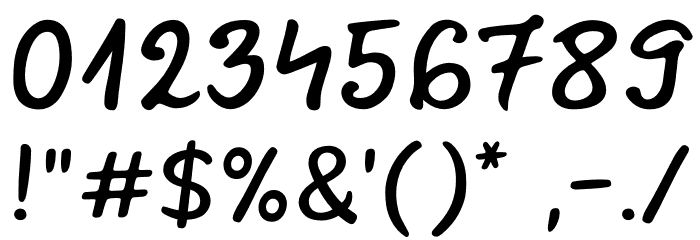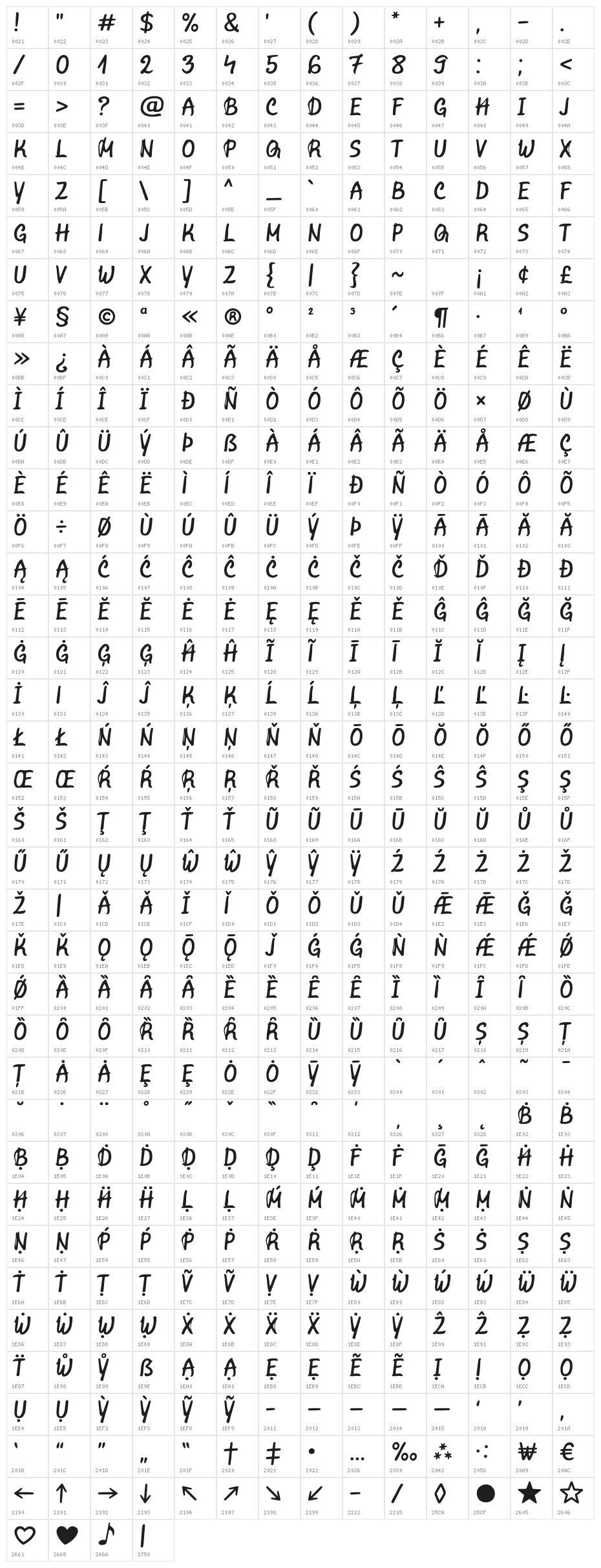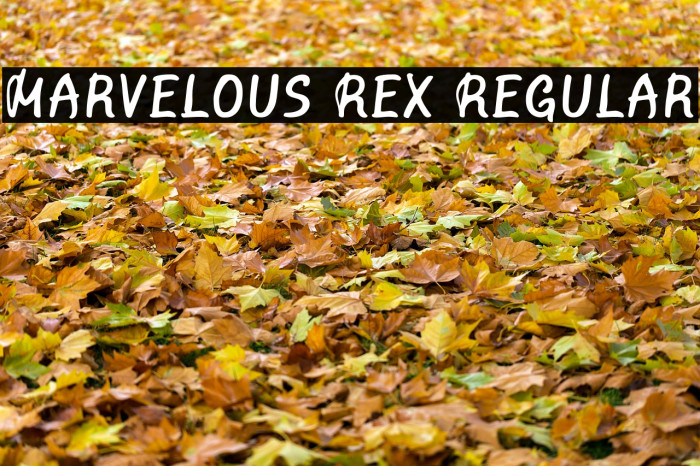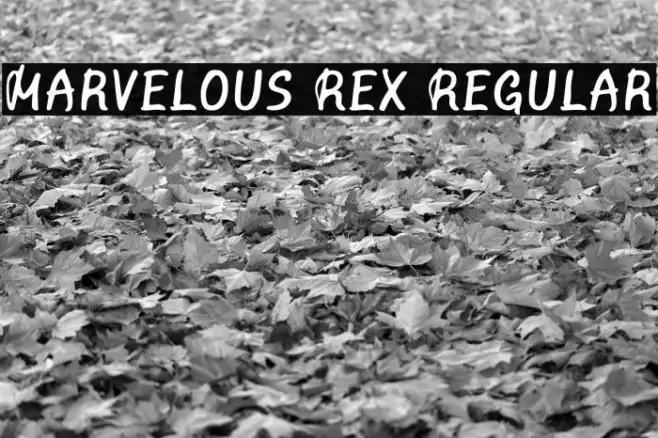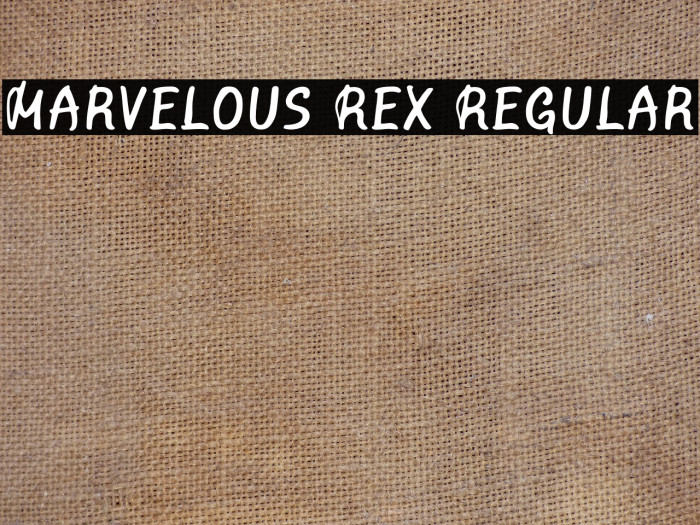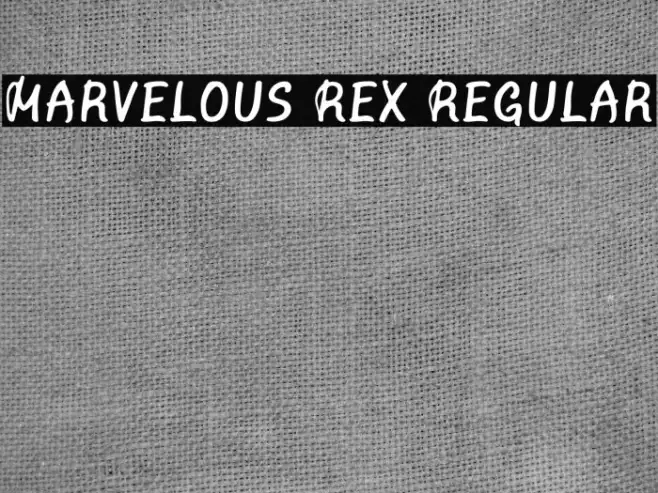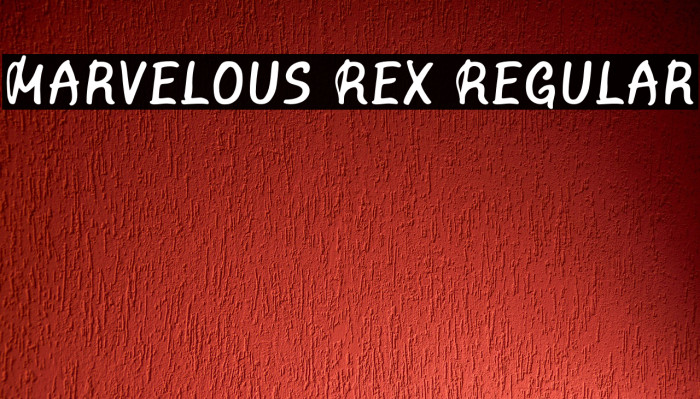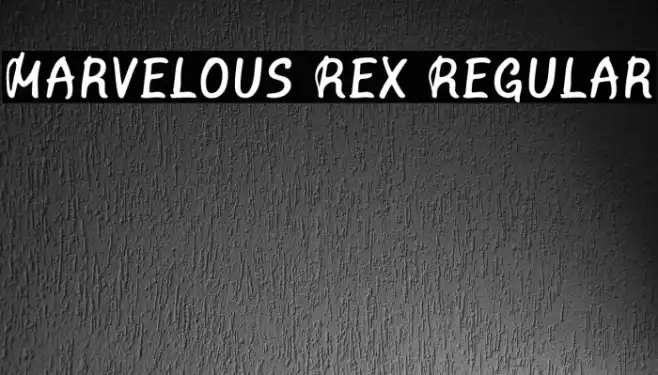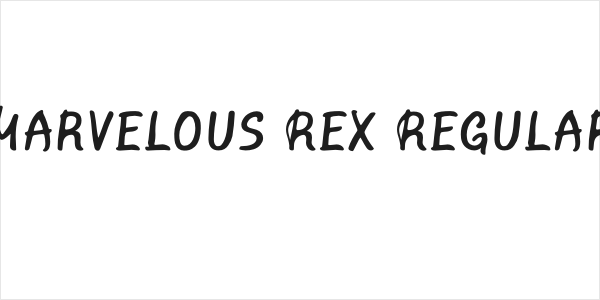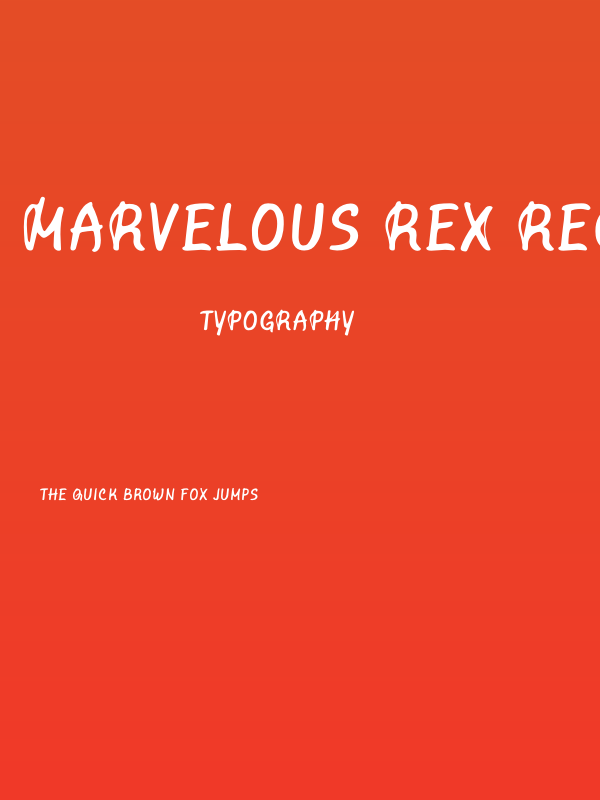
Marvelous Rex Regular Font
Marvelous Rex Regular Description
This font exhibits a playful and energetic style with a handwritten appearance. The letters are bold and slightly slanted, giving them a dynamic and lively feel. The strokes are consistent in thickness, providing a uniform look across all characters. The uppercase and lowercase letters maintain a cohesive design, with rounded edges and a slight tilt that adds to the casual aesthetic. The numerals and special characters follow the same design principles, ensuring a harmonious overall look. This font is well-suited for projects that require a personal touch or an informal vibe.
| Overall Style | Playful, Casual |
| Proposed Projects | Ideal for greeting cards, children's books, playful branding, and social media graphics. |